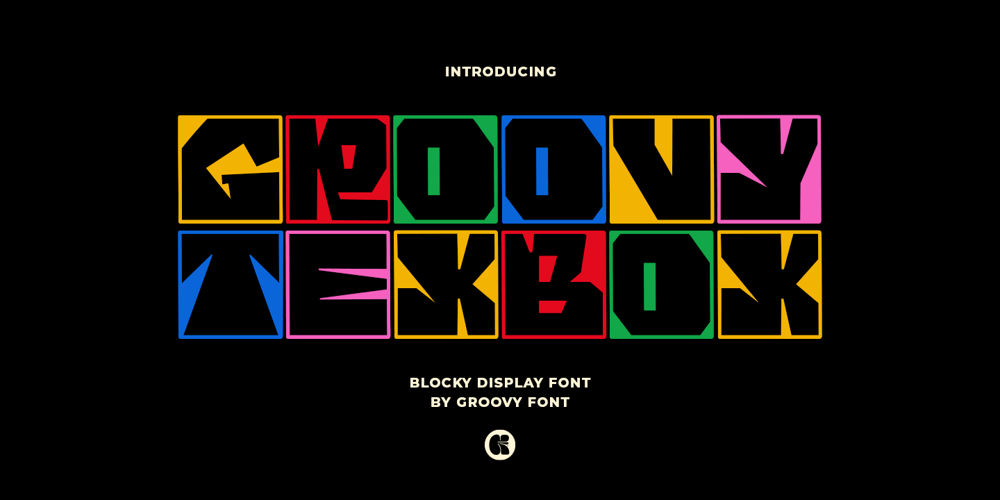
Groovy Texbox
Groovy Texbox font
Groovy Texbox Font Family was designed by Ahmad Ginanjar Riyadi and published by Groovy Font. Groovy Texbox contains 1 styles and family package options. Groovy Texbox is a bold, blocky display font with a retro style. Each letter is enclosed within a blocked box, giving it a distinctive, eye-catching appearance. This font is perfect for creating a bold and playful retro look in posters, headlines, and other designs.What’s you’ll get : – Uppercase, Lowercase, Numeral, Punctuation & Multilingual.For any questions please contact me 🙂Thank You !